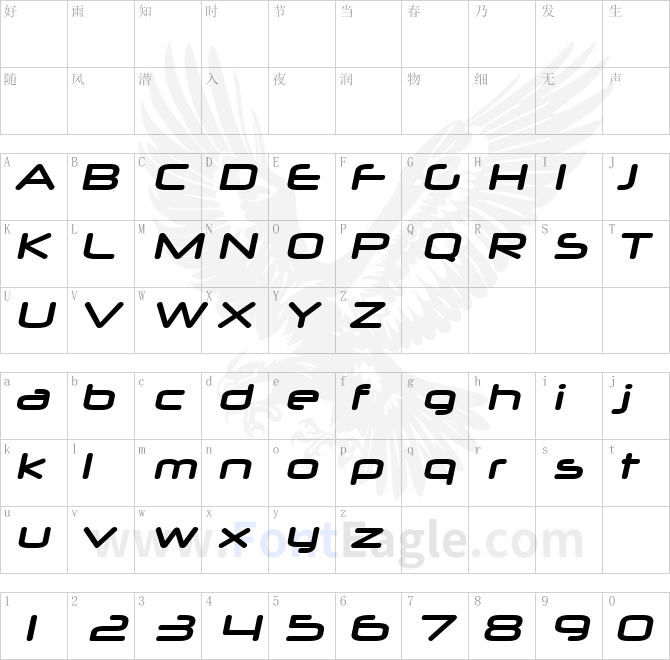
- Font name:Neuropol X Xp
- Font Subfamily ID:TYPO: Neuropol X Xp Bold Italic: 2004
- Font Full Name:Neuropol X Xp Bold Italic
- Font Version:Version 1.200 2004
- Postscript:NeuropolXXp-BoldItalic